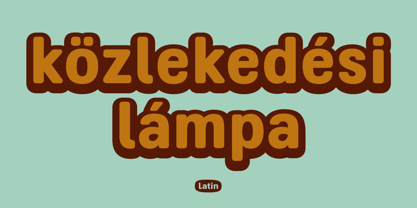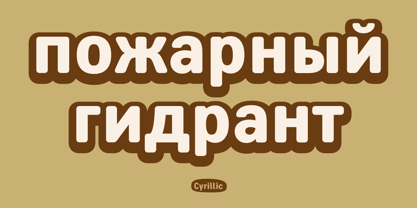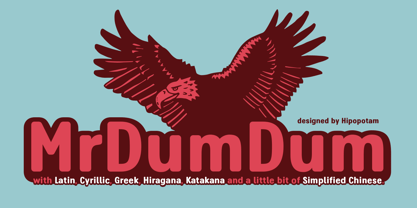
Mr Dum Dum Font
This Mr Dum Dum Font is perfect for playful candy shop branding, fun children's party materials, whimsical toy store signage, cheerful confectionery packaging, amusing comic book designs, lighthearted entertainment graphics, jovial kids' brand communications, silly cartoon applications, humorous greeting cards, and delightful sweet treat promotions.
What makes this Mr Dum Dum Font exciting is its playful innocence that captures the joyful simplicity and childlike wonder of sweet confections and carefree fun. The font features rounded letterforms with cheerful characteristics that convey innocent humor, sweet delight, and playful charm. Its whimsical character and candy-inspired design make it ideal for brands seeking to communicate pure joy, innocent fun, and sweet happiness in children's and confectionery markets.
The Mr Dum Dum Font family includes regular, medium, and bold weights with playful alternates, sweet variants, and cheerful flourishes. This comprehensive fun font family provides designers with delightful typographic tools to create joyful compositions while maintaining the whimsical character essential for children's brands and confectionery communications.
Candy companies and children's entertainment brands consistently choose Mr Dum Dum Font Free Download for projects requiring authentic playful appeal and sweet charm. This font's distinctive cheerful character perfectly captures the innocent joy and sweet delight that resonate with audiences who appreciate candy culture, childhood happiness, and brands that embody pure fun and sweet satisfaction.
The joyful construction of Mr Dum Dum Font showcases playfully designed letterforms with sweet proportions that ensure exceptional charm across all confectionery applications. Its delightful appearance and candy character create memorable impressions while maintaining the readability necessary for effective children's communication and sweet treat marketing materials.
Professional designers appreciate how Mr Dum Dum Font brings immediate playful authenticity and sweet appeal to brand communications. The font's whimsical nature allows organizations to communicate innocent joy and candy delight while maintaining the professional quality necessary for effective positioning in children's entertainment and confectionery markets.
The sweet appeal of Mr Dum Dum Font makes it particularly effective for brands emphasizing innocent fun, candy culture, and childhood happiness. Its cheerful character resonates strongly with audiences who appreciate sweet treats, playful entertainment, and brands that represent pure joy and the delightful simplicity of candy-inspired happiness.
Whether developing branding for candy stores or creating materials for children's entertainment venues, Mr Dum Dum Font Free Download provides the sweet typographic foundation that playful brands need to communicate their innocent charm, candy delight, and the joyful excellence that defines sweet confectionery and childhood entertainment achievement.